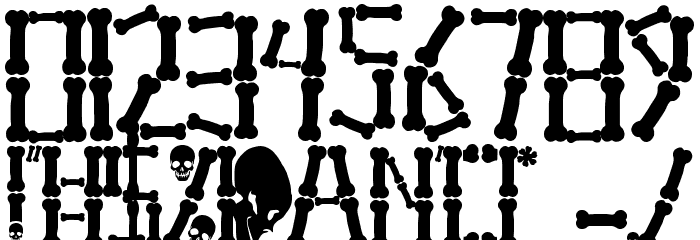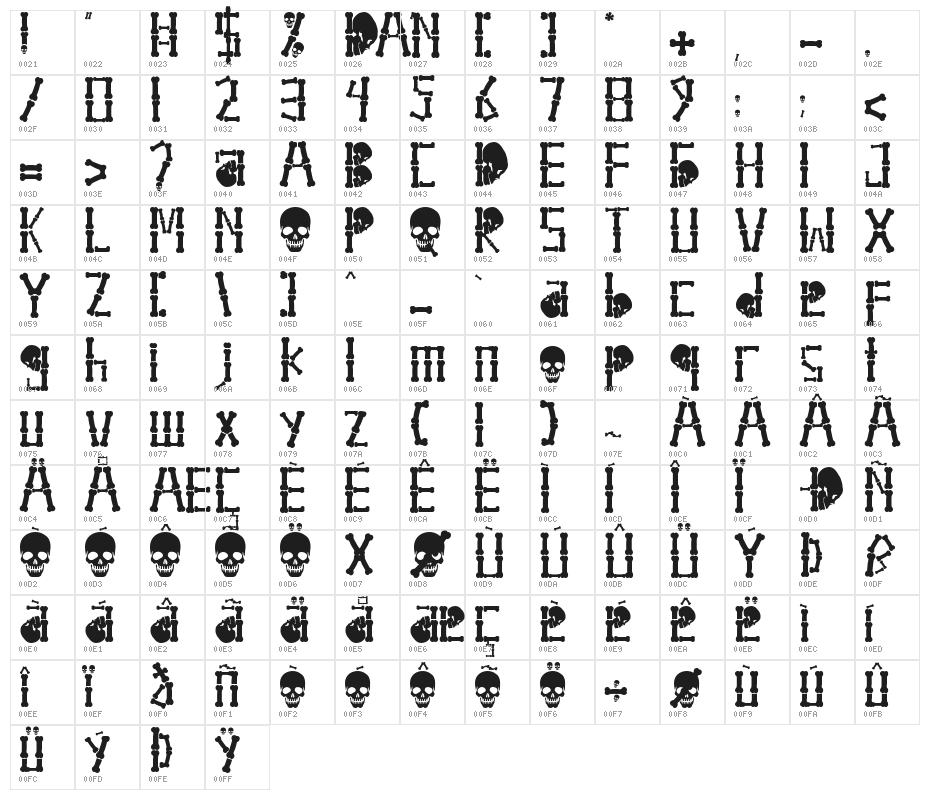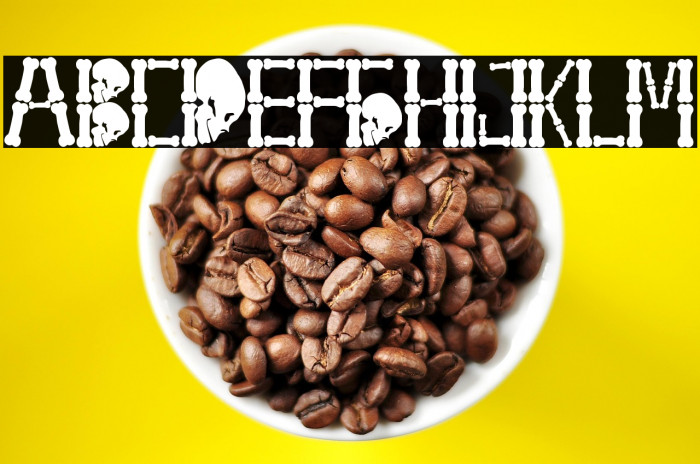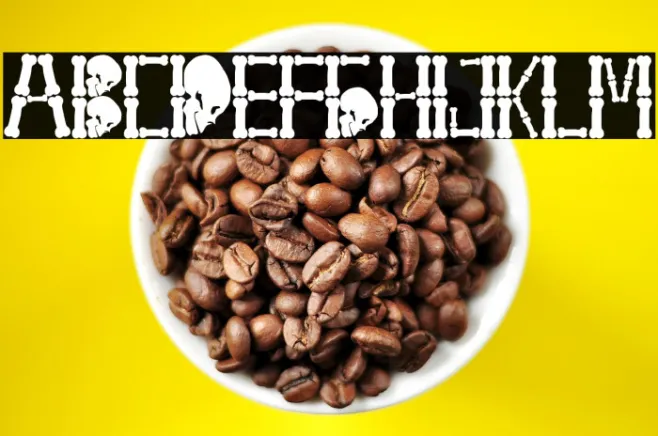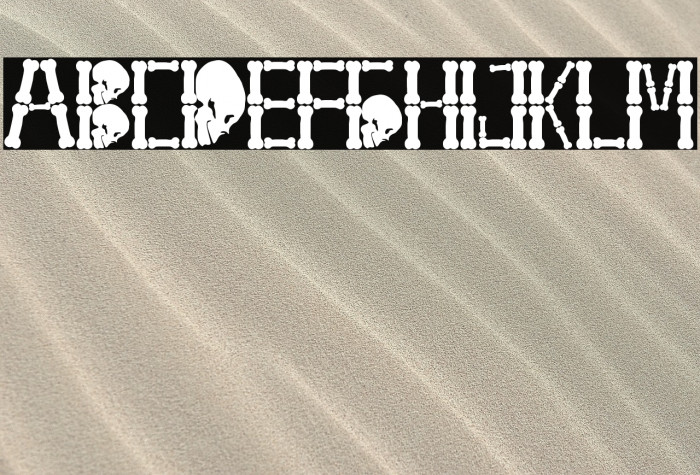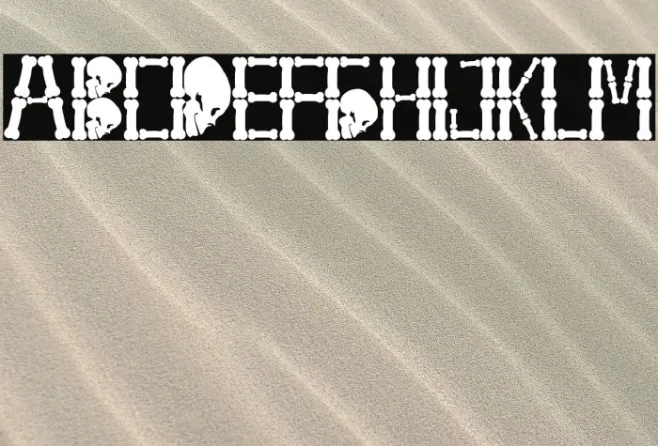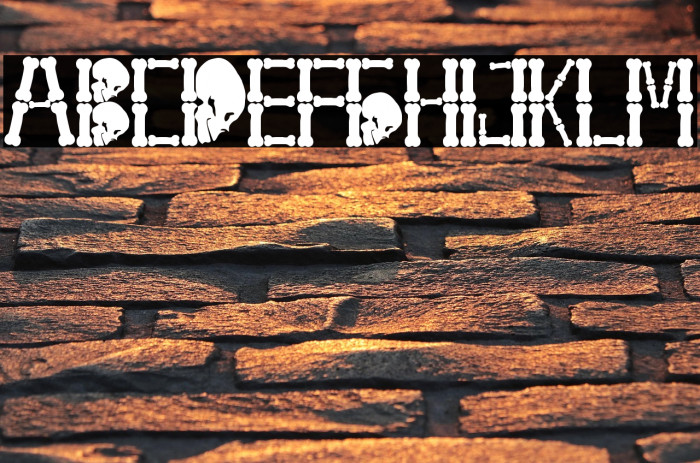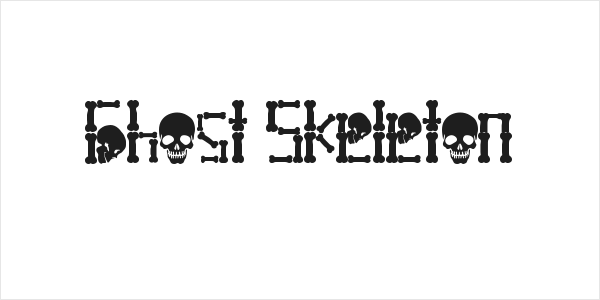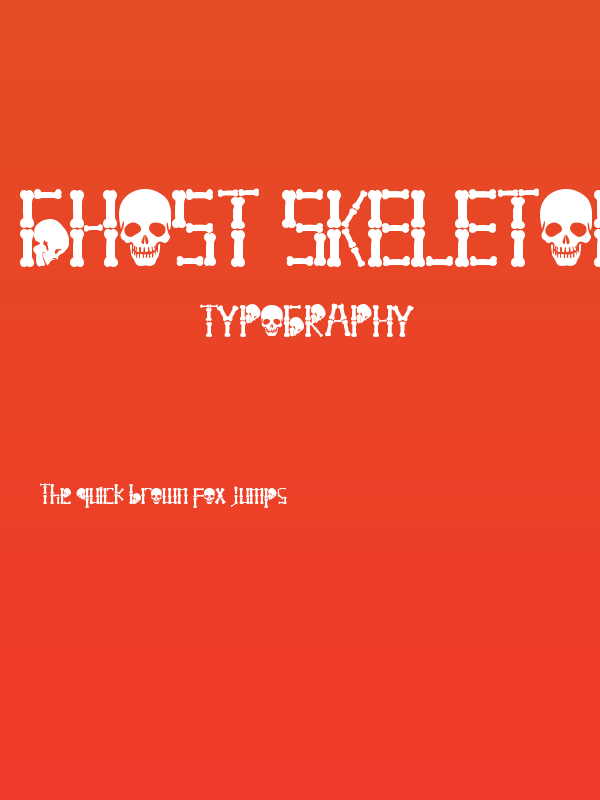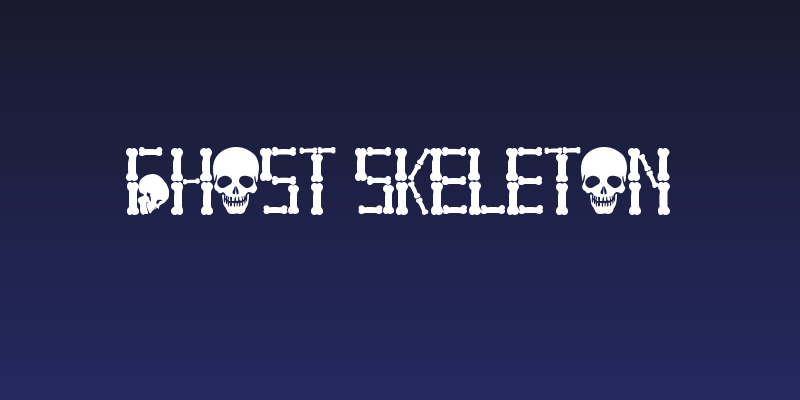
Ghost Skeleton Font
Ghost Skeleton Description
This font features a unique and playful design where each character is constructed using skeletal elements, giving it a spooky and Halloween-themed appearance. The letters are formed with bones and skulls, creating a decorative and eye-catching style. The uppercase and lowercase letters maintain a consistent skeletal motif, while numbers and special characters also follow this theme. The font's design is bold and striking, making it ideal for projects that require a fun yet eerie aesthetic. Its intricate details and thematic elements make it stand out, perfect for seasonal or themed events.
| Use Case | Headlines, Logos, Themed Events |
| Proposed Projects | Ideal for Halloween invitations, themed party decorations, horror movie posters, and spooky event branding. |